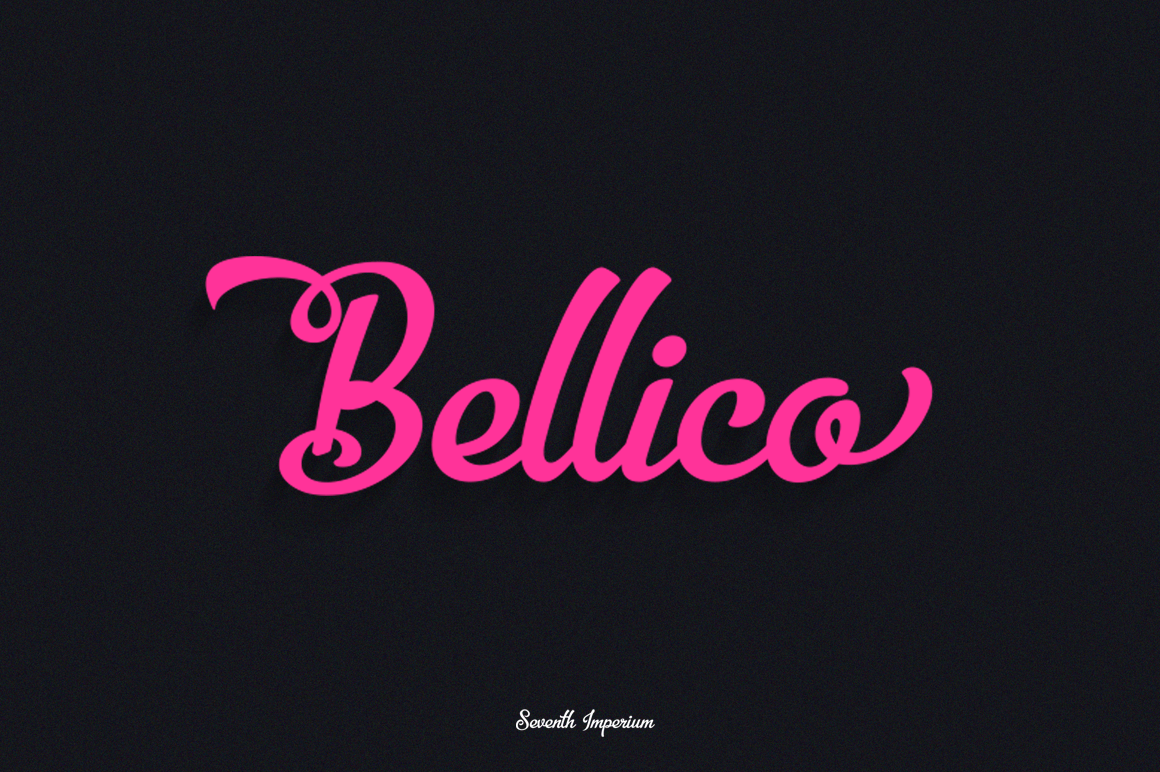
Bellico Typeface +Bonus Pack
Bellico is a beauty script typeface with a large range of alternates that fits any kind of various purpose with a bunch of alternative character to easily create cool text,logos, headlines. etc. available through OpenType features. The OpenType features can be accessed by using OpenType savvy program such as Adobe Illustrator CS, Adobe Indesign & CorelDraw X6-X7.